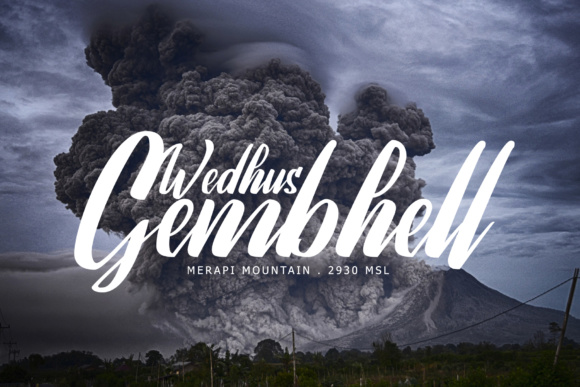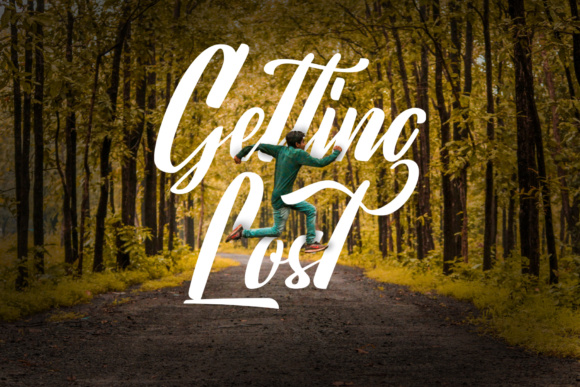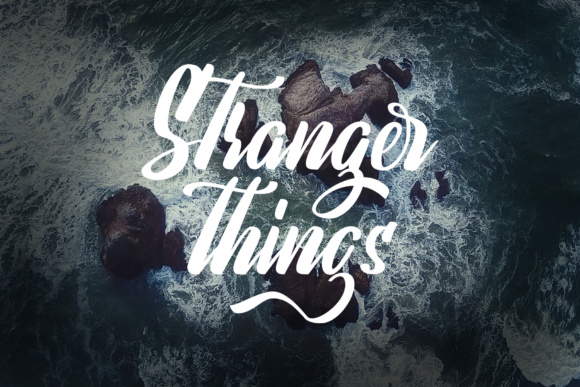
Introduction to Lavalette Font
Lavalette is a beautiful, painterly font that works well for a wide range of design styles.
This is a great headline font, and works well to display bold and important messages and quotes .
Key Features of Lavalette Font
Why Choose Lavalette Font?
Lavalette Font offers exceptional quality and versatility, making it a valuable addition to your design toolkit. Whether you’re creating for personal projects or commercial use, Lavalette Font delivers professional results.